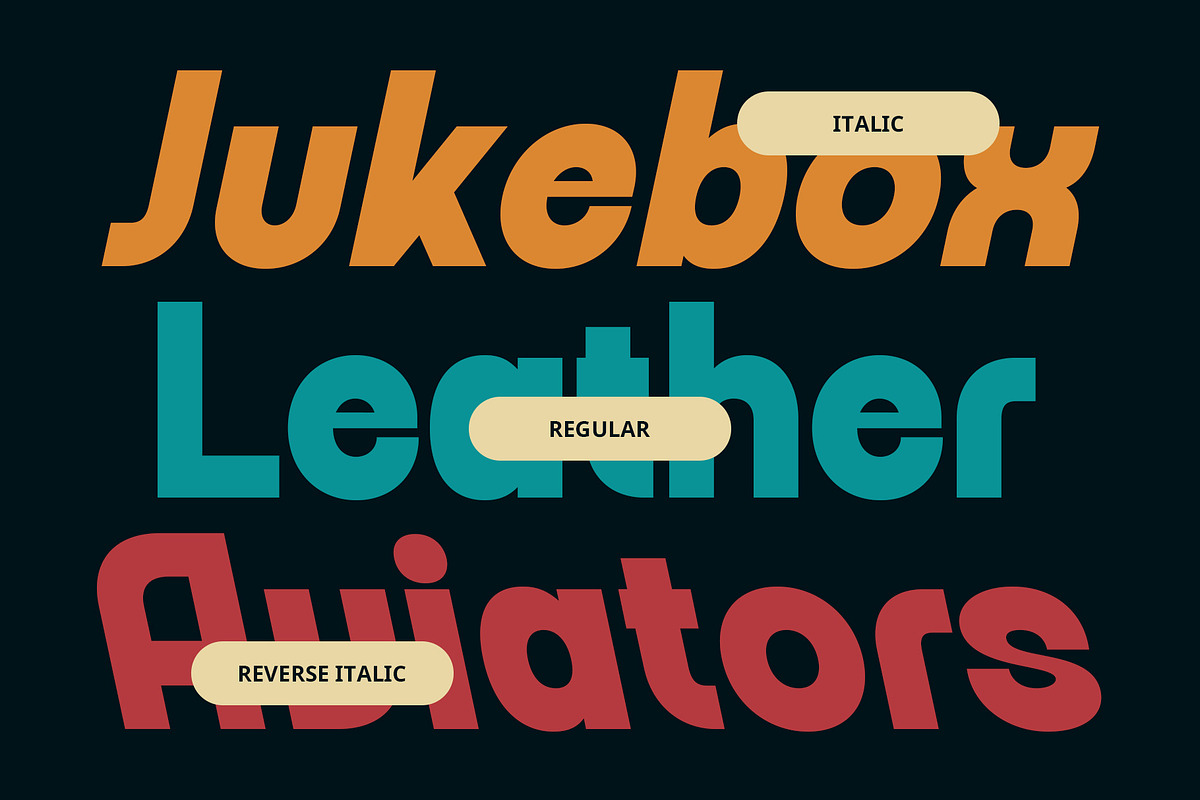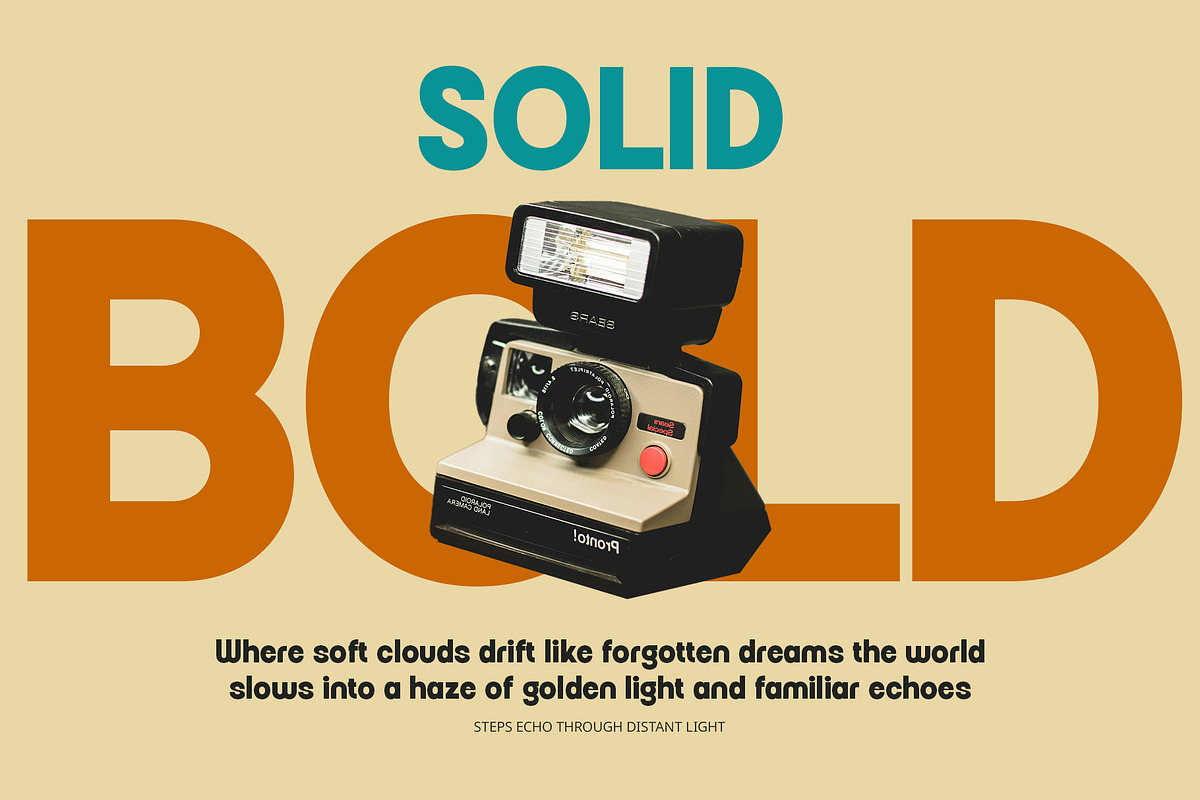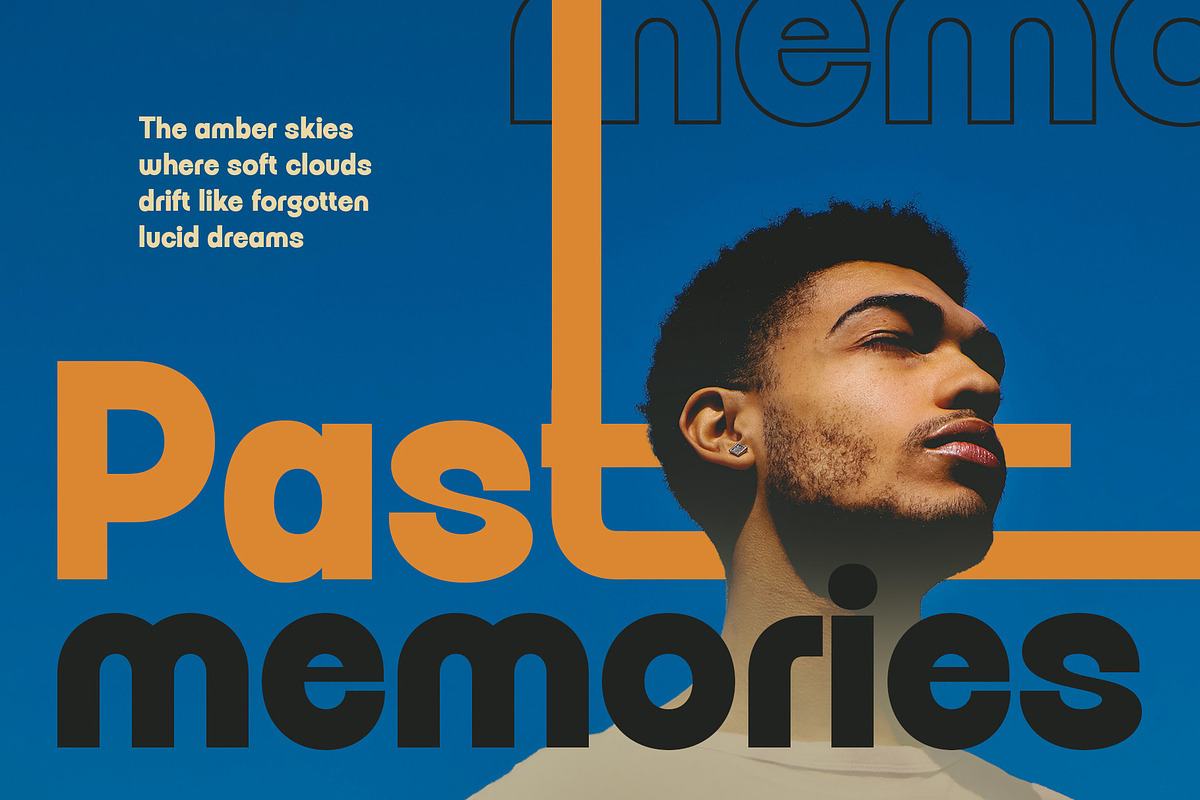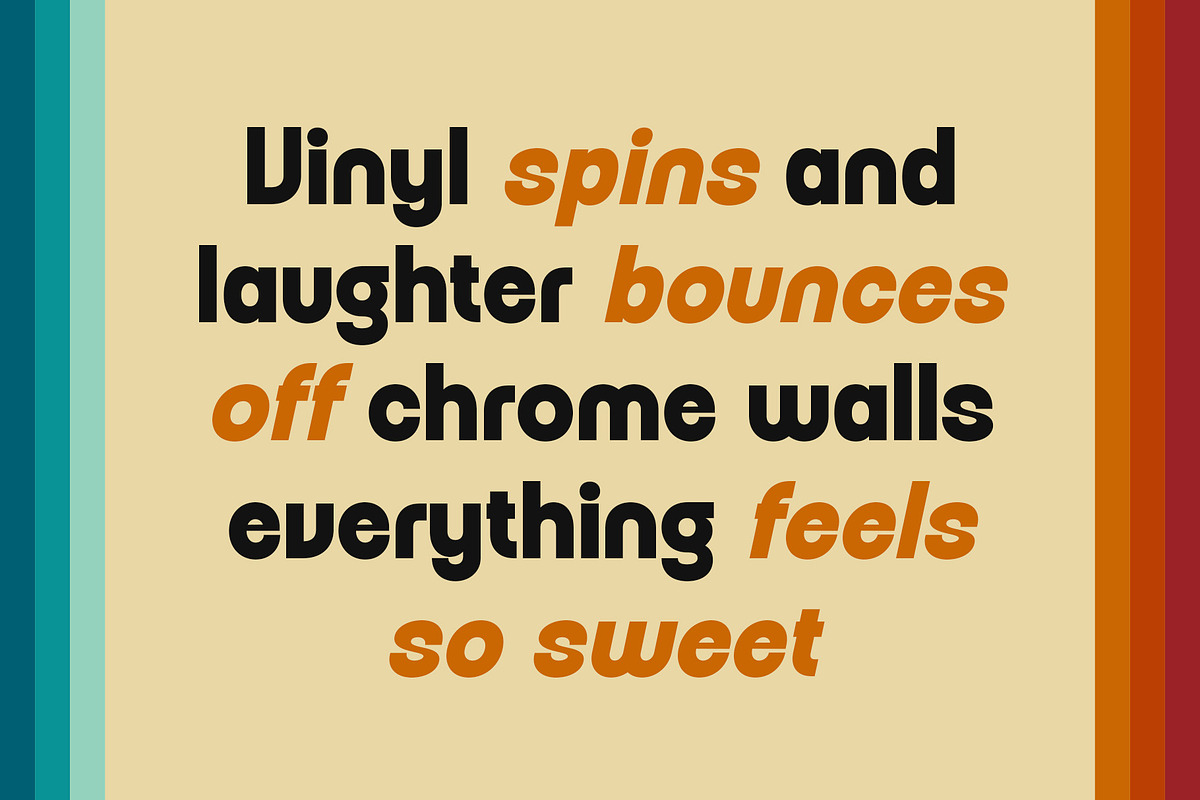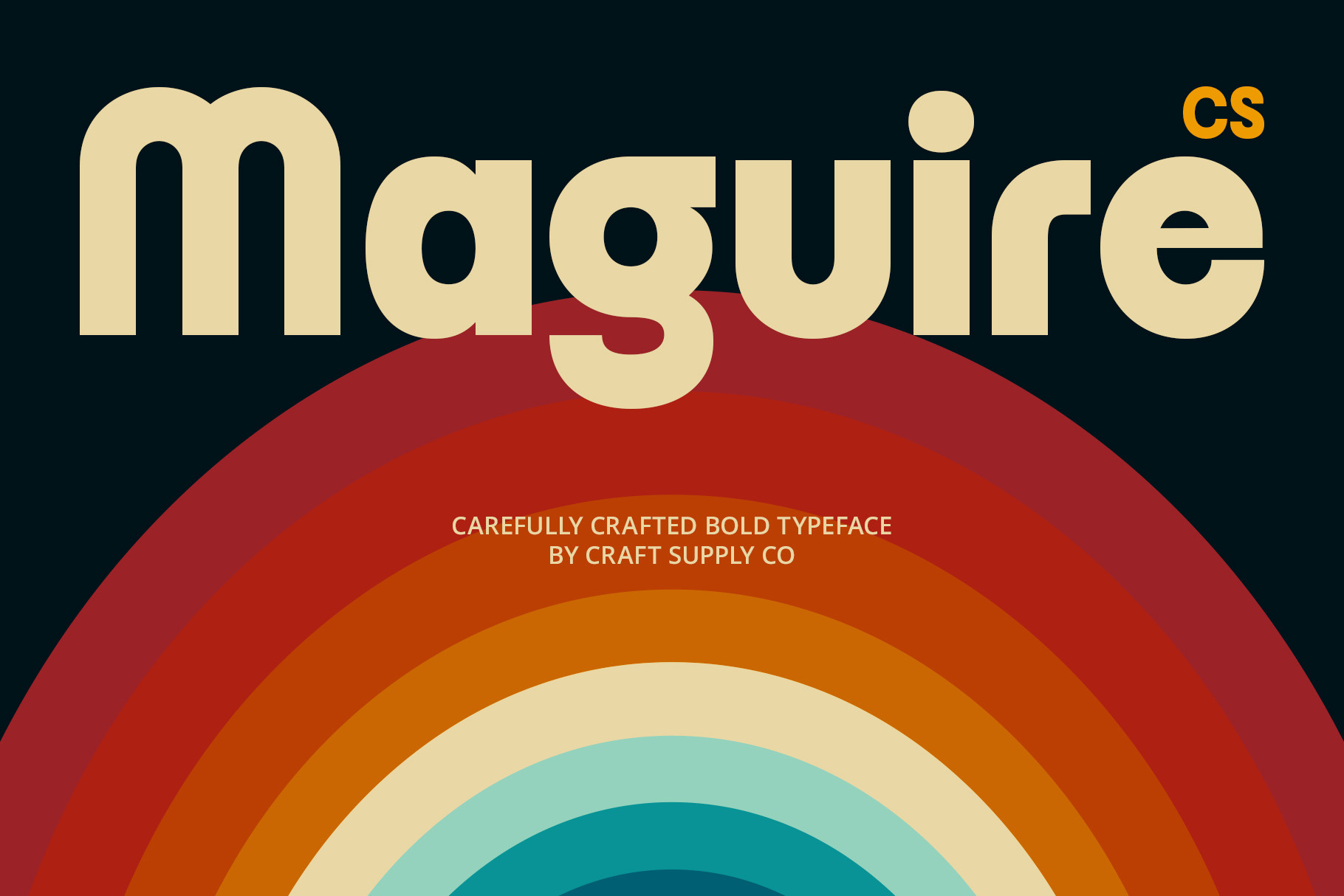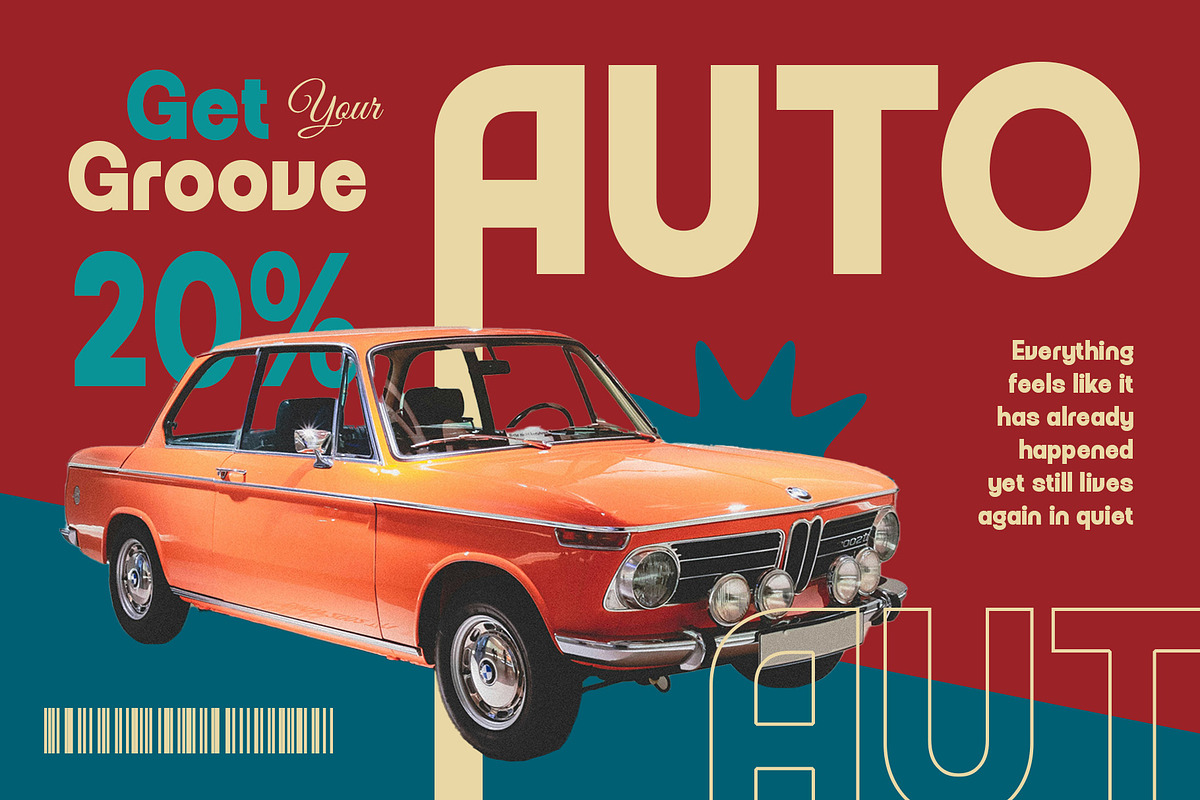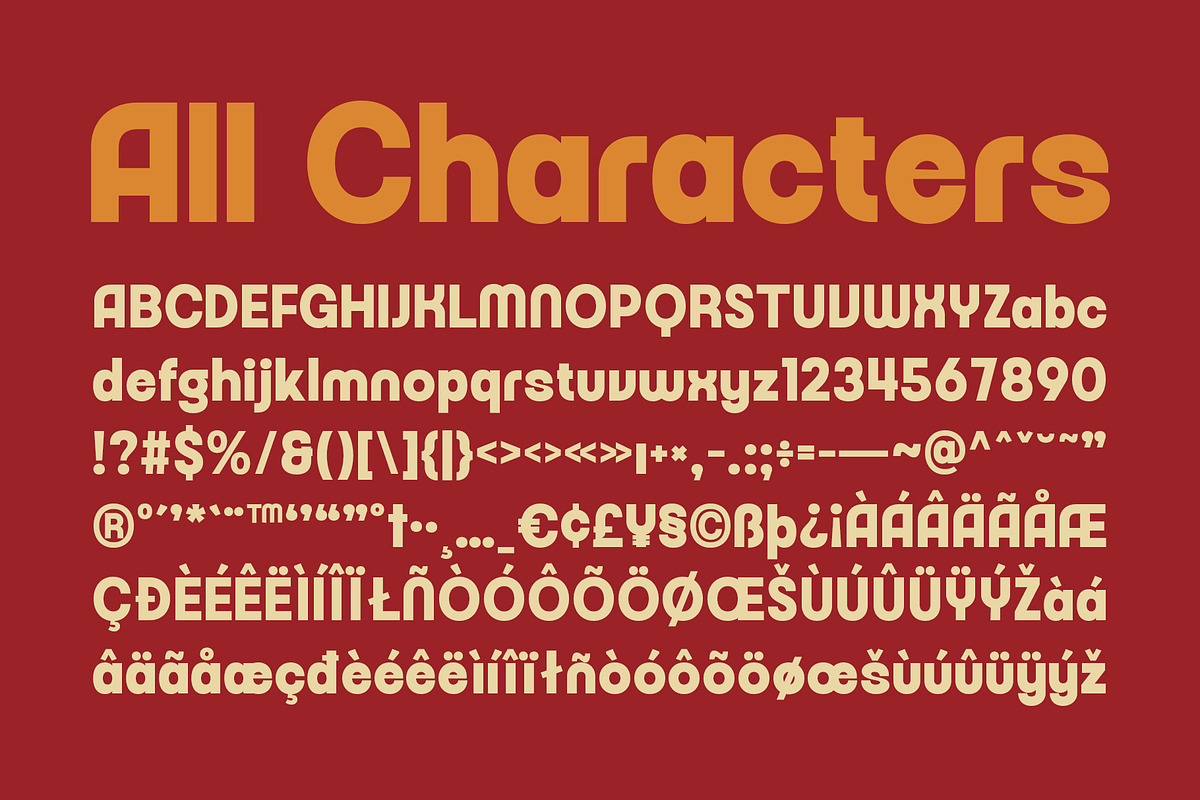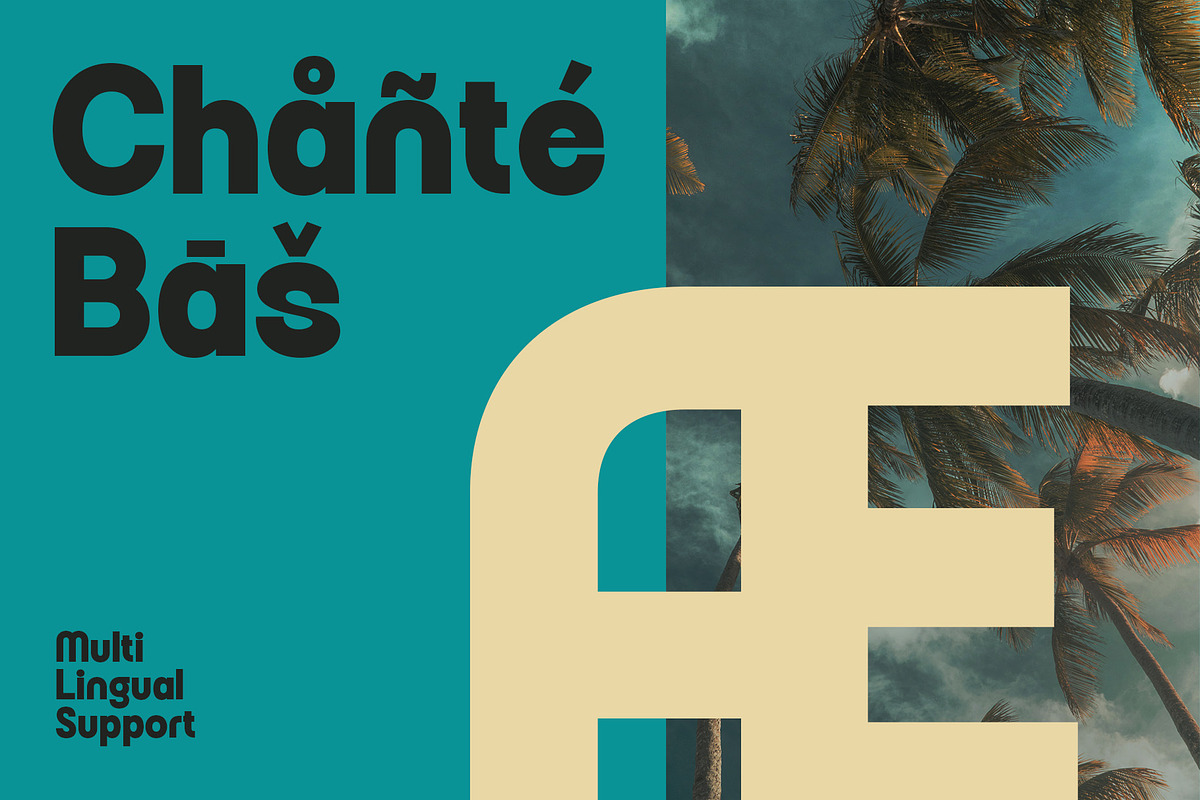
CS Maguire – Retro Font
CS Maguire – Retro Font: Bold Simplicity with a 90s Touch
Classic Strength with Retro Charm CS Maguire is a classic sans serif font that combines a clean, bold form with the nostalgic charm of 90s-era design. Inspired by the print media, advertising, and visual culture of the decade, it delivers a style that feels both familiar and impactful.
Sharp, Clean, and Timeless Designed with strong, decoration-free lines and balanced proportions, CS Maguire achieves a look that is easy to read yet visually striking. The crisp edges and solid structure give it a timeless quality, ensuring it works across decades of design trends.
Perfect for Iconic Branding and Display Whether for posters, logos, product packaging, or bold brand identities, CS Maguire projects confidence and clarity. Its 90s retro vibe adds character without overwhelming the design, making it perfect for projects that want to feel both modern and nostalgic.
Versatile Across Media and Styles From digital branding to large-scale prints, CS Maguire adapts with ease. Its strong visual presence ensures readability in headlines, while its clean structure works equally well for minimalist layouts. This versatility makes it an essential tool for designers seeking a font that bridges classic appeal with retro personality.
- CS Maguire Regular
- CS Maguire Italic
- CS Maguire Reverse Italic